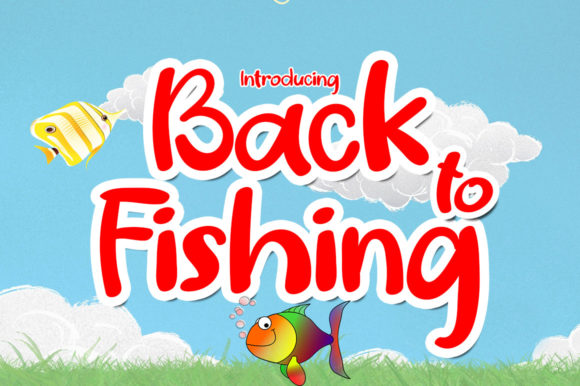
Back to Fishing Font
About Back to Fishing Font
Back to Fishing is a cute and friendly handwritten font. No matter the topic, this font will be an incredible asset to your fonts’ library, as it has the potential to elevate any creation.